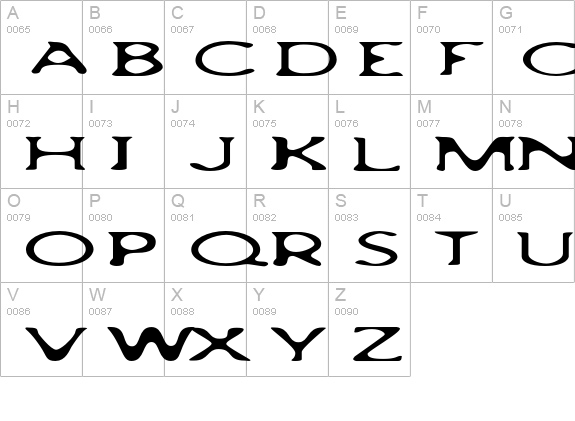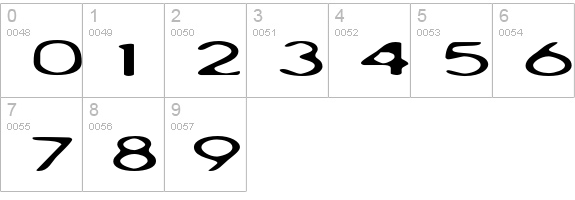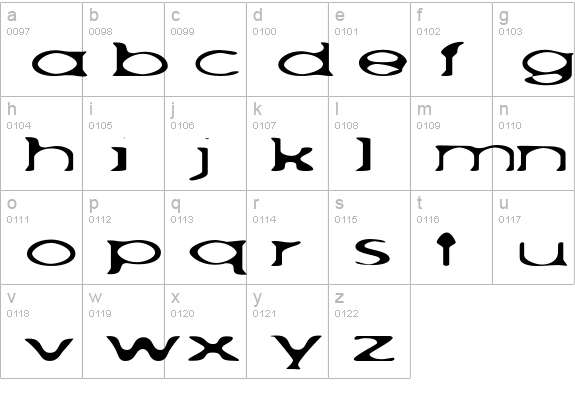
AchillesBlurLight-Extended Font Details
AchillesBlurLight-Extended is a distinctive, extended-width variant in the AchillesBlurLight typeface family \xE2\x80\x94 well suited to design and typography projects.
AchillesBlurLight-Extended font is a versatile and modern typeface that exudes elegance and sophistication. Its clean lines and sleek design make it perfect for a wide range of design projects, from branding to editorial layouts. The extended version of this font offers additional versatility with its elongated characters, adding a unique touch to your designs. What sets AchillesBlurLight-Extended font apart is not only its striking appearance but also the fact that it is freely available to download at FontsMarket.com. This means that you can access this high-quality font without any cost, making it a valuable addition to your font library. Whether you're a professional designer or a hobbyist looking to elevate your projects, AchillesBlurLight-Extended font is a fantastic choice that won't break the bank. Download it today and start creating stunning designs with ease.